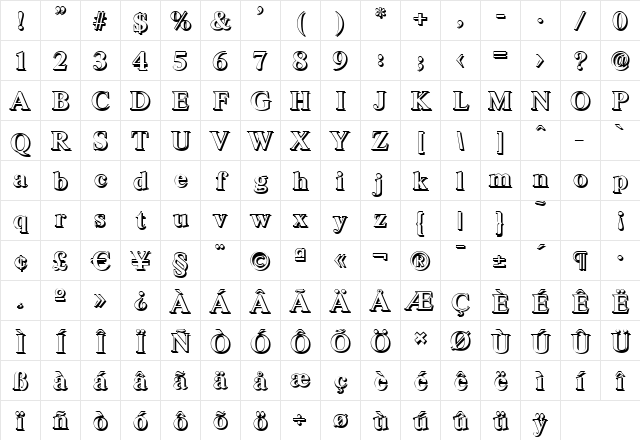
SimonBeckerShadow Bold Free Font
SimonBeckerShadow Bold
Design Context for SimonBeckerShadow
SimonBeckerShadow is built around its visual character rather than neutral utility - its distinctive forms are designed to make an impression at display sizes. Its bold stroke weight gives it real presence on the page.
Font Pairing: Pair with a clean neutral sans-serif for body copy to let SimonBeckerShadow's character lead without overwhelming the composition.
Pro Tip: Use SimonBeckerShadow exclusively at display sizes - it was designed to be seen, not read at length. Let a neutral companion handle body copy.